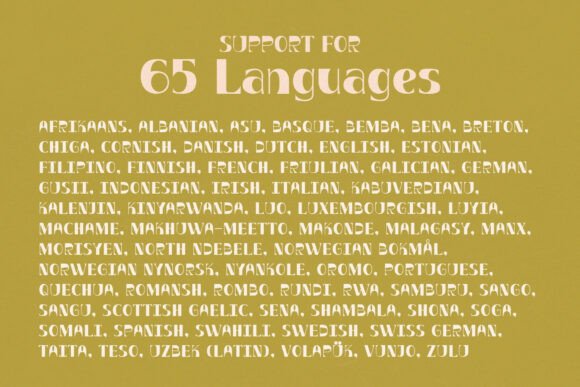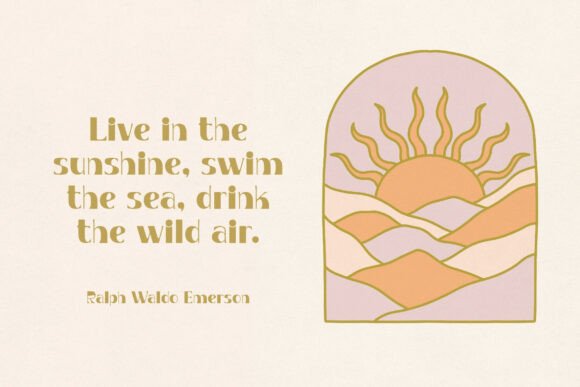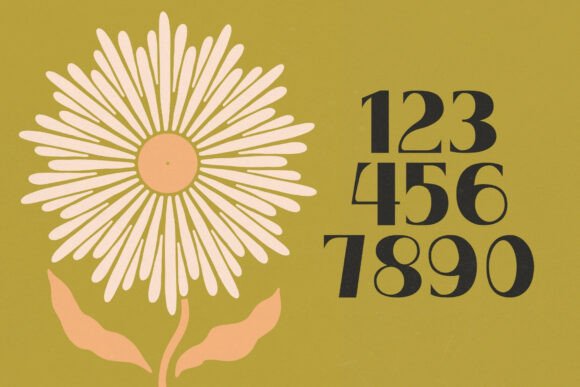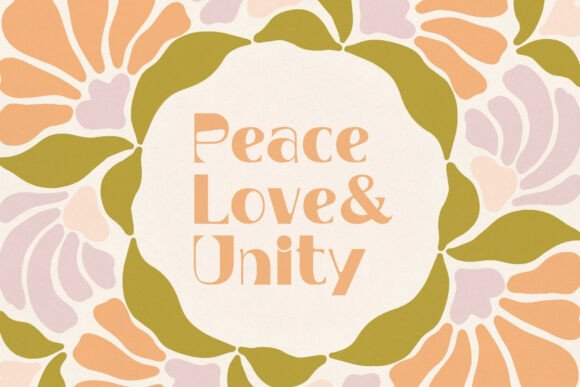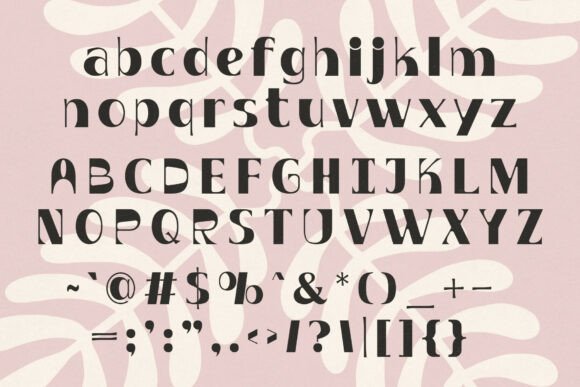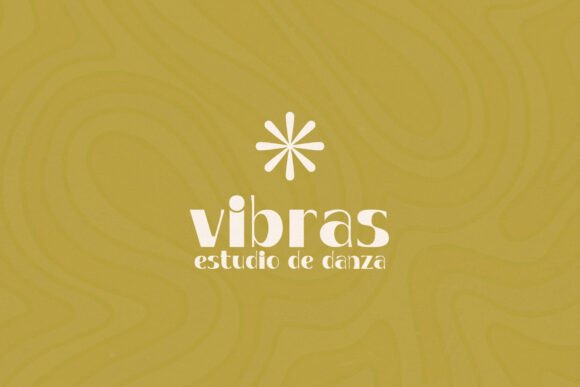
Introduction to Mojo Master Font
Have you ever found yourself rummaging through your grandfather’s attic, unearthing a vintage poster that sparks a wave of nostalgia and creativity? That’s exactly the kind of magic that the Mojo Master Font brings to your design projects. This groovy, organic display typeface is a masterful blend of 1970s counterculture, hand-drawn lettering, and free-spirited energy.
As a valuable resource for designers, Mojo Master Font is perfect for creating unique and eye-catching designs that celebrate creativity, individuality, and soul. With its flowing curves, soft edges, and rhythmic letterforms, this font exudes a warm, human feel that’s instantly recognizable. Whether you’re working on a creative project with a transparent background or need a high-quality font for a social media graphic, Mojo Master Font delivers pure mojo.
Key Features of Mojo Master Font
- High-quality, professional font designed for creative projects, offering a unique and stylish look.
- Perfect for designers looking to add a touch of modernity and sophistication to their creative projects.
Honest Review: Mojo Master Font
I recently came across the Mojo Master Font, and I’m excited to share my thoughts on this design resource. As a designer, I’m always on the lookout for high-quality fonts to elevate my creative projects.
Here’s what I love about the Mojo Master Font:
- ✨ Unique and quirky design that adds a touch of personality to any project
- ✨ Clean and modern aesthetic that works well for digital and print projects
- ⚠️ Limited character set, which may not be ideal for complex design projects
Overall, I’m impressed with the Mojo Master Font’s quality and design. While it may have some limitations, it’s a great resource for designers looking for a unique and modern font for their creative projects.
To get the most out of the Mojo Master Font, use it with a transparent background to create a modern and sleek look. Experiment with different font sizes and styles to add depth and visual interest to your design.
The Mojo Master Font is ideal for:
- Infographics and data visualization